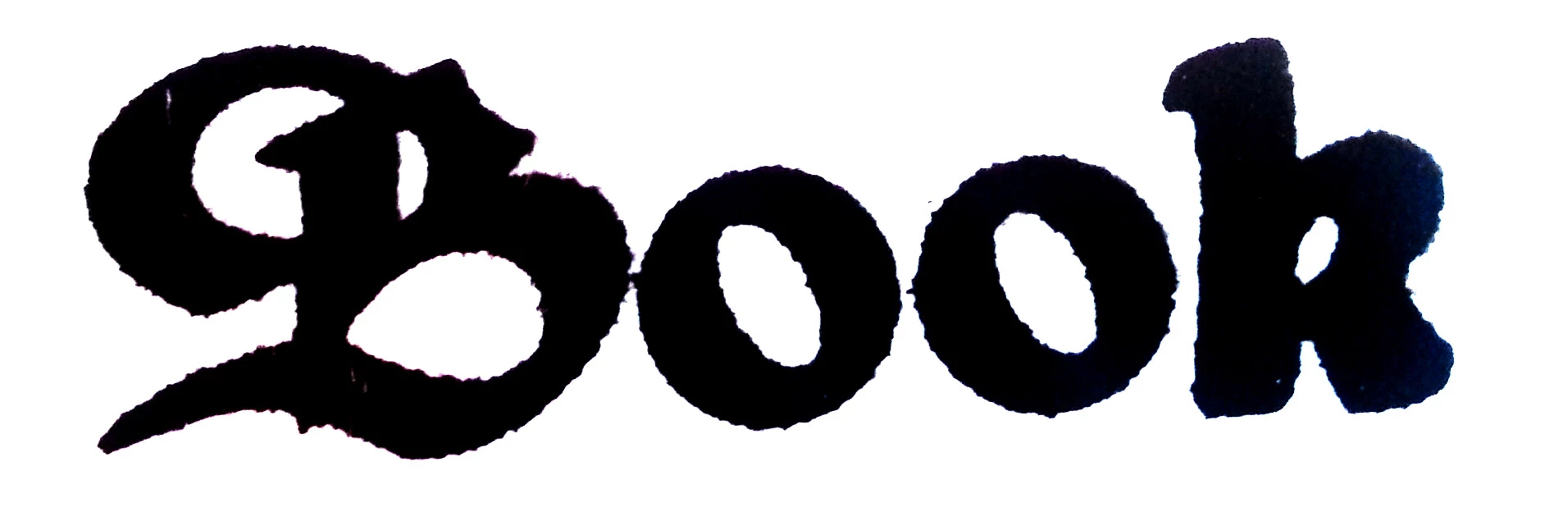
I'm looking for this font (or very similar one)
I would like to know what font this is, or the name of a similar font.
I've already tried with font from an image recognition services and also sites with step by step font identification. It's not a typical serif or sans-serif font, so no luck so far.
Can't find it, and looks more like a hand-made font